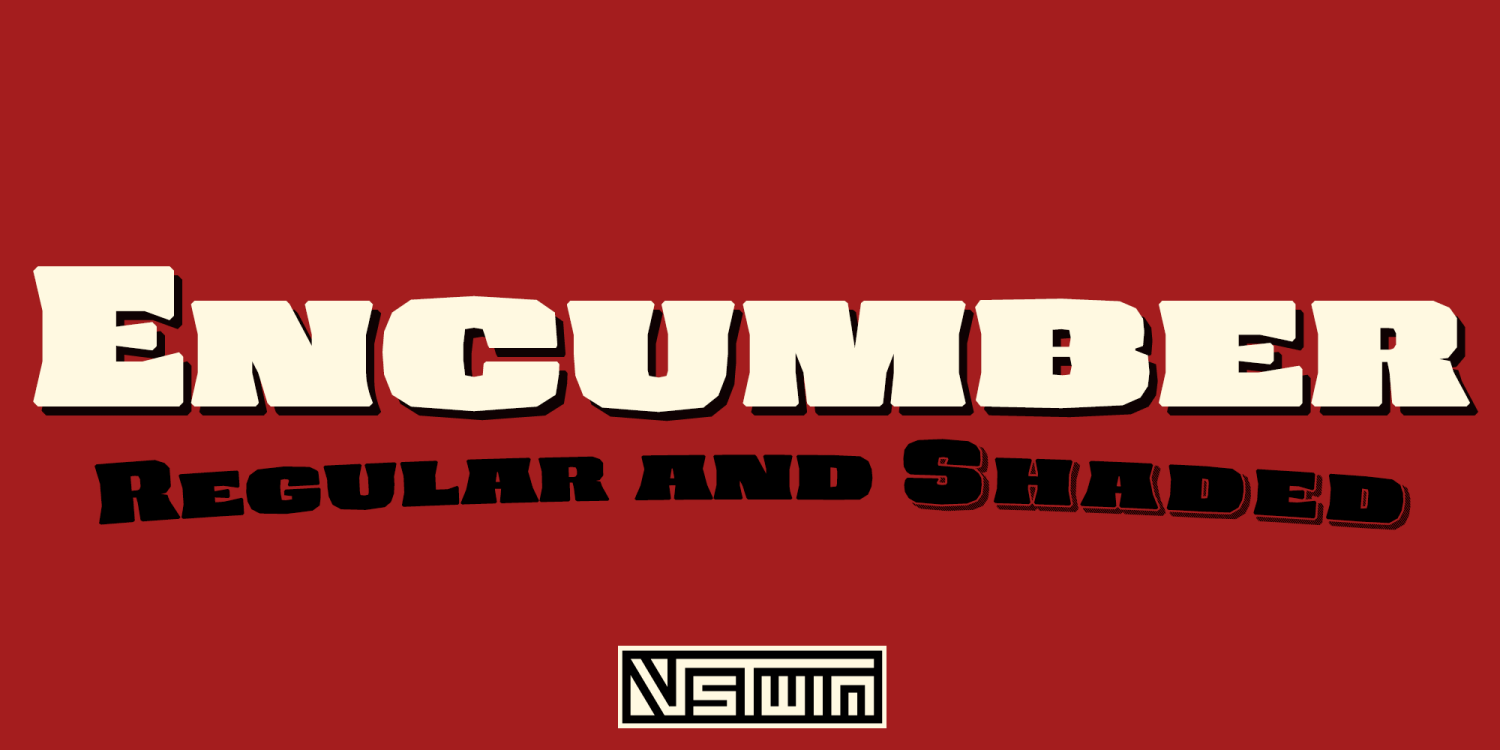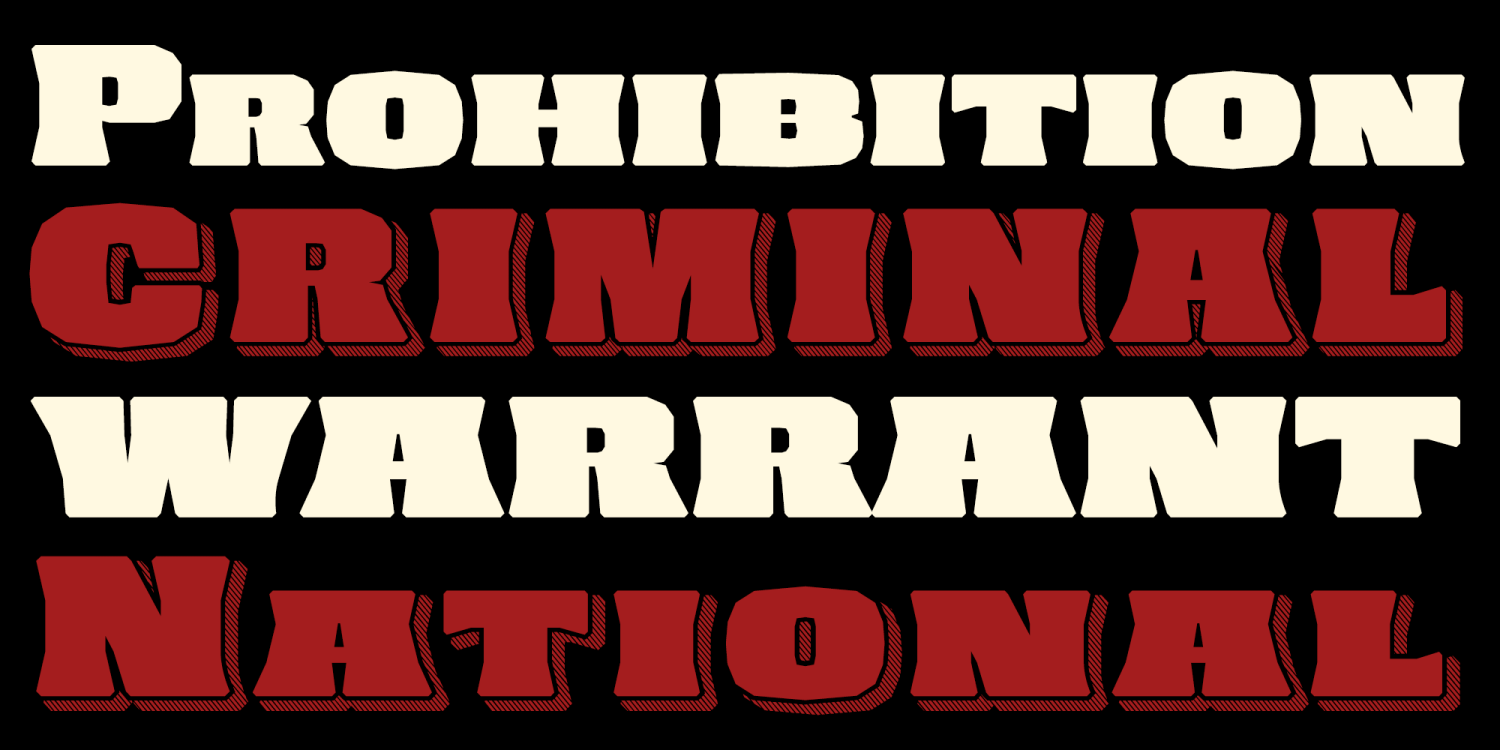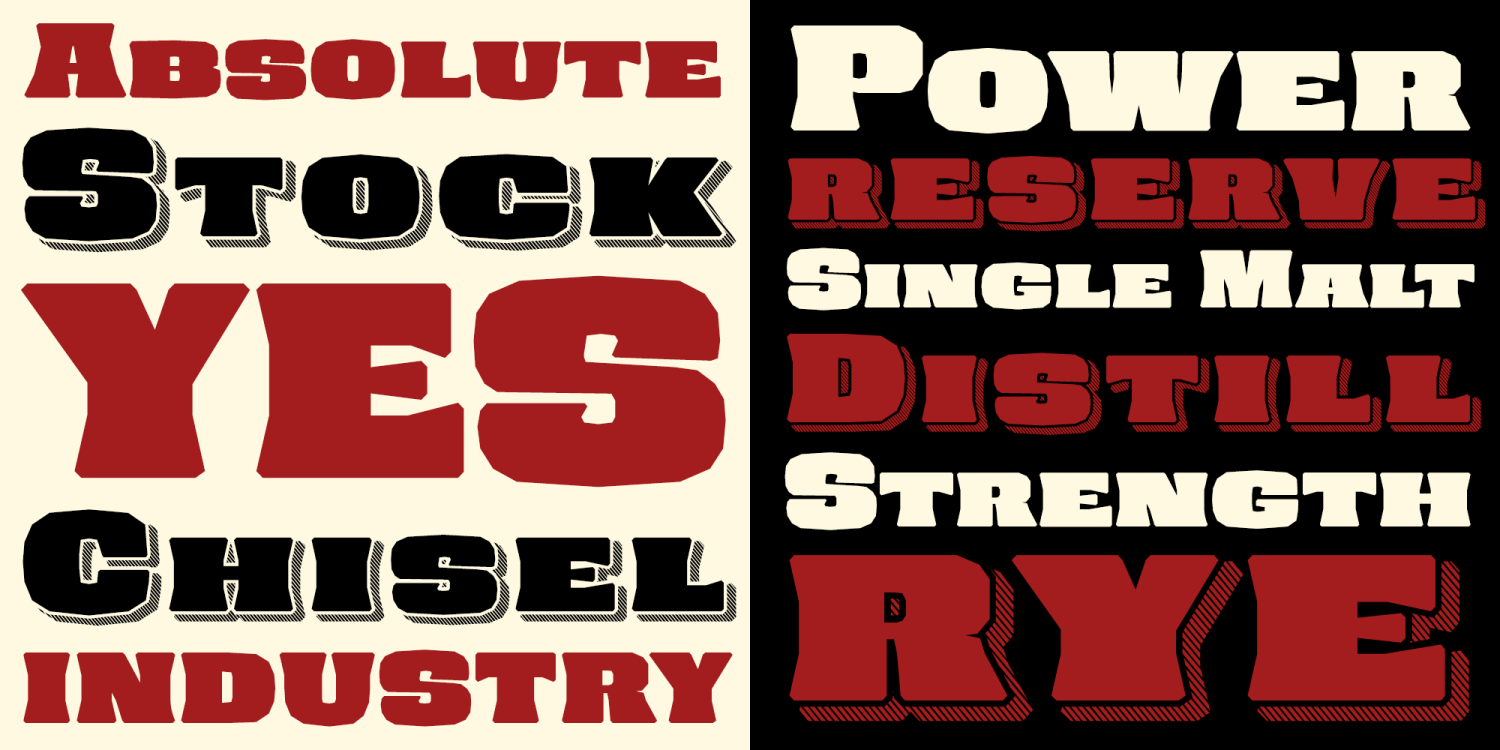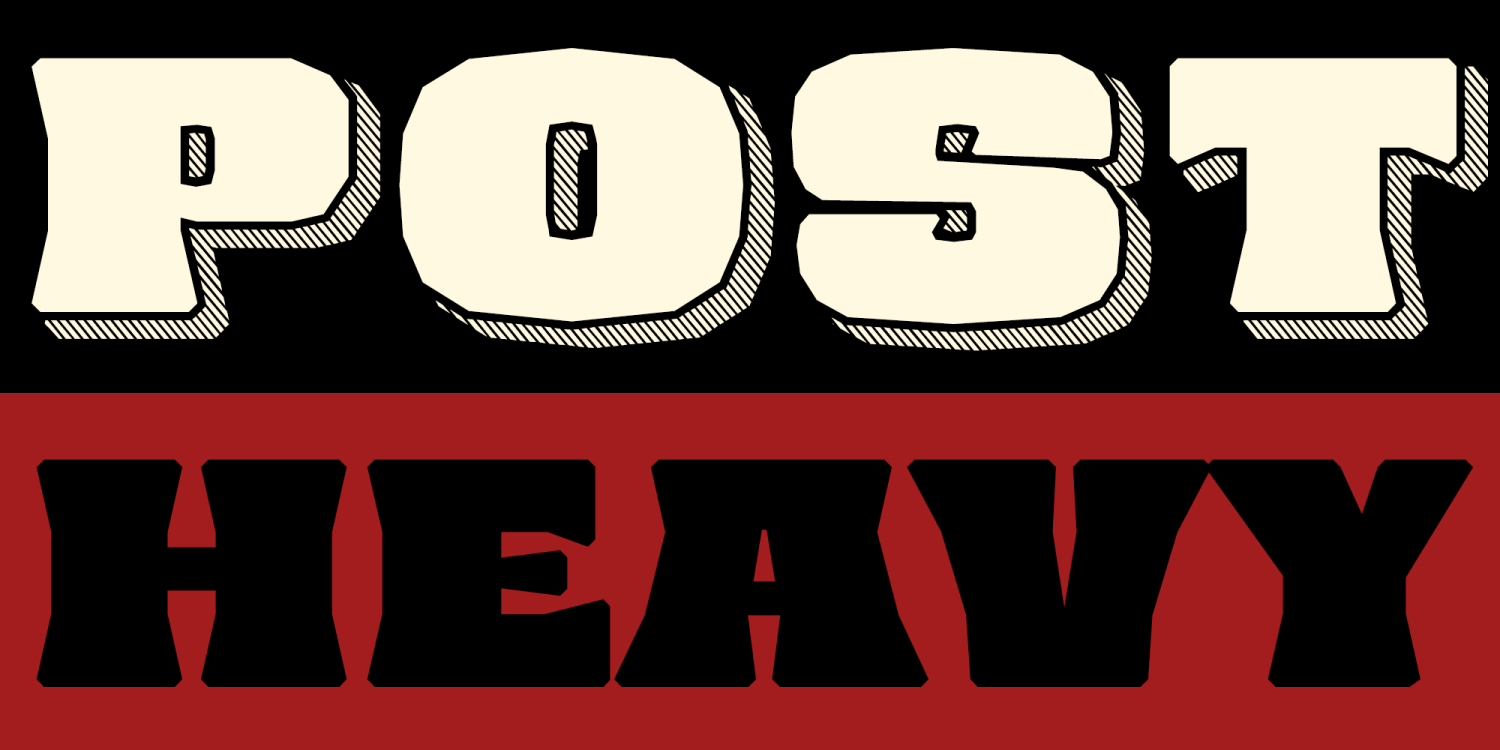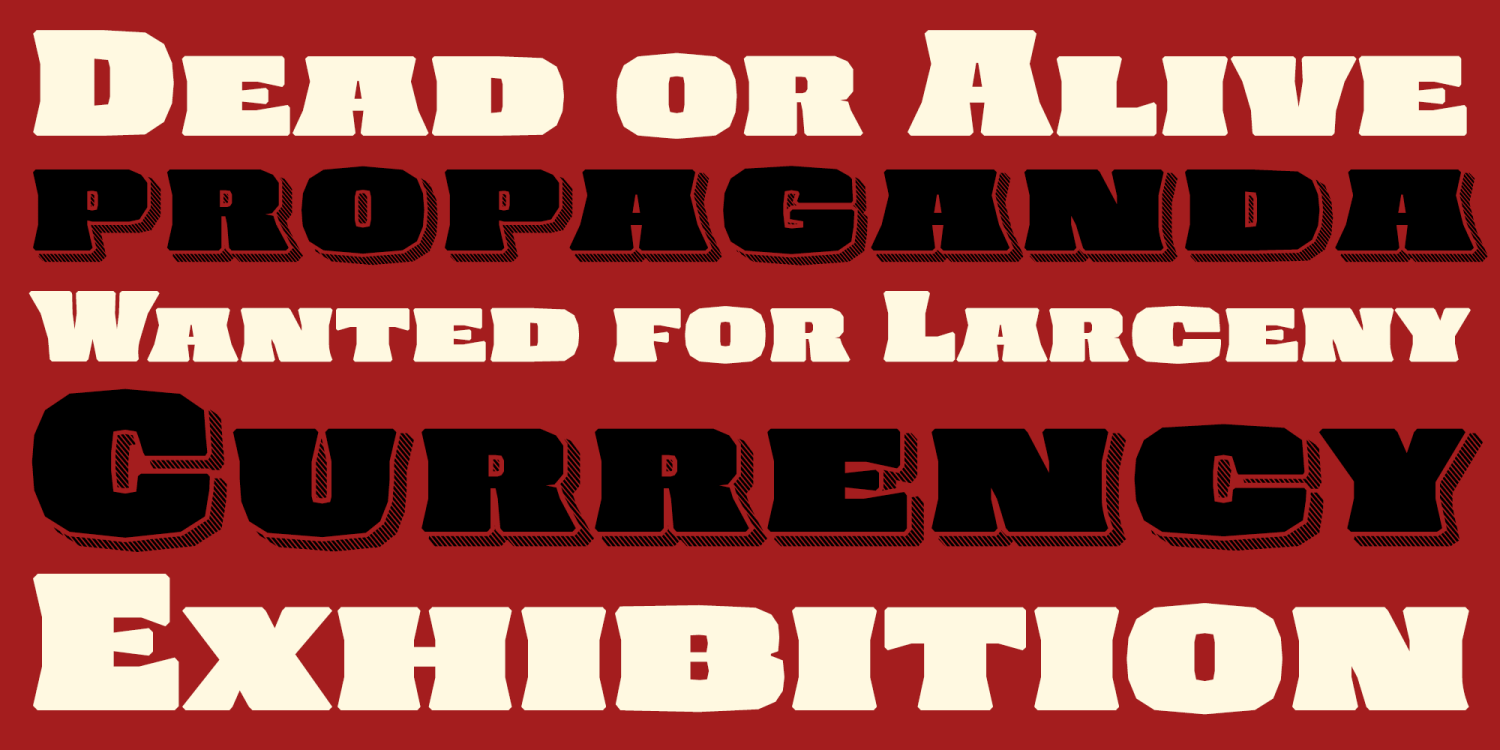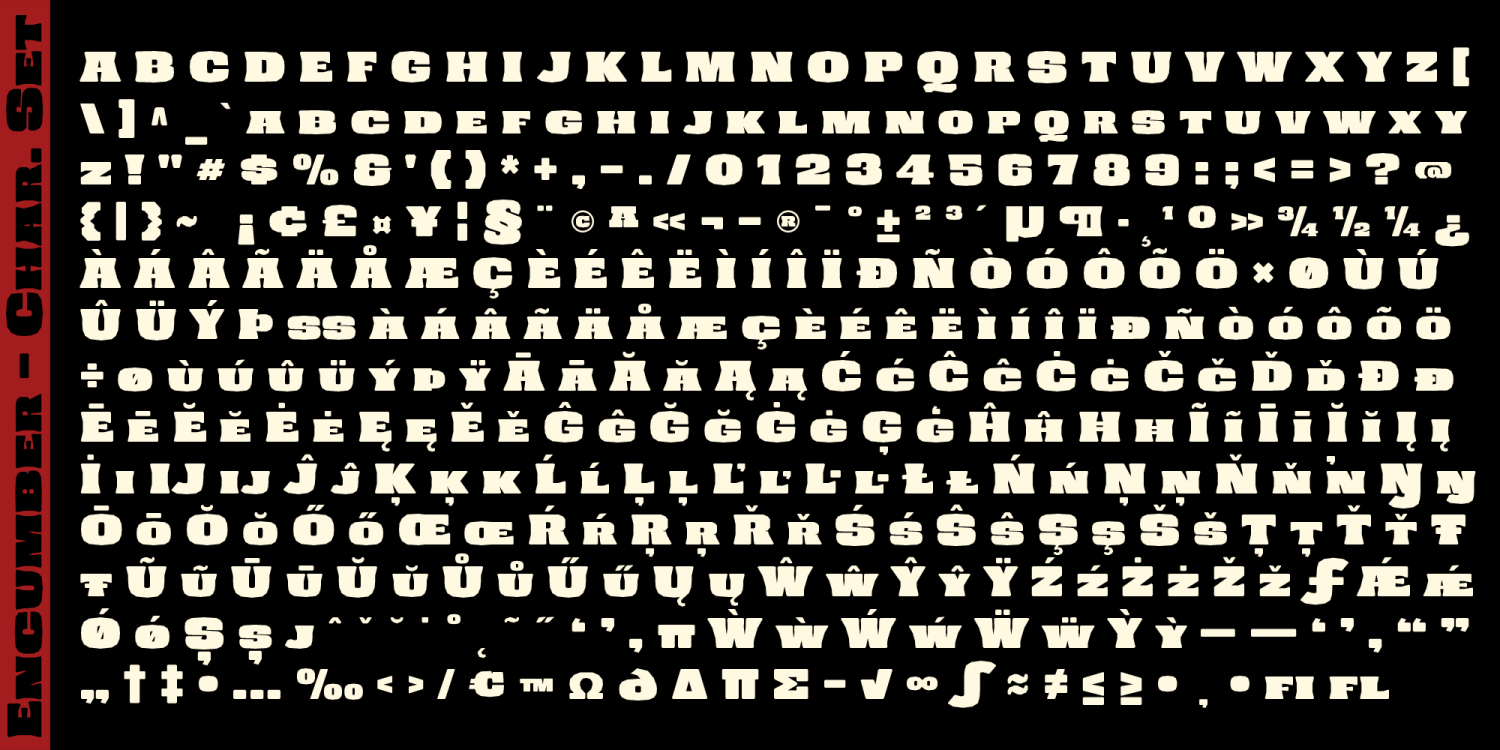
Encumber
Encumber is the revival of a typeface family created by Brian Jaramillo as part of his Agency26 project known as Millstone.
From it's heavyweight stance and historical influences, Encumber carries a powerful presence that can be hard to deny. The Shaded variant adds even more of a historical vibe, playing with scripophily style etching shadows. The Encumber family definitely has a niche vibe to it, historical and serious, but also heavyweight and borderline friendly as well. How will you use it?